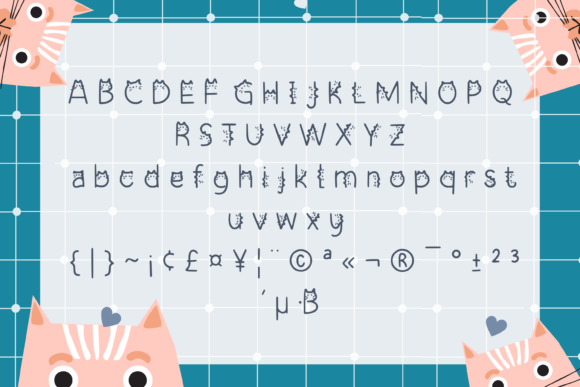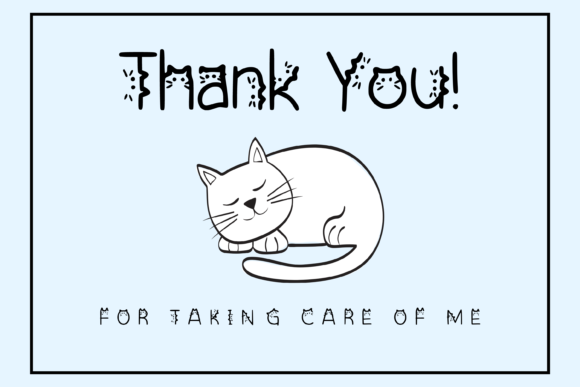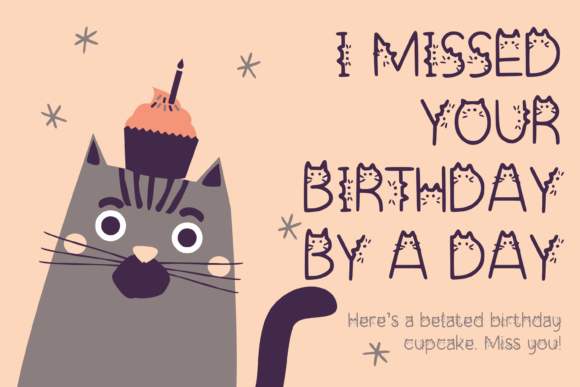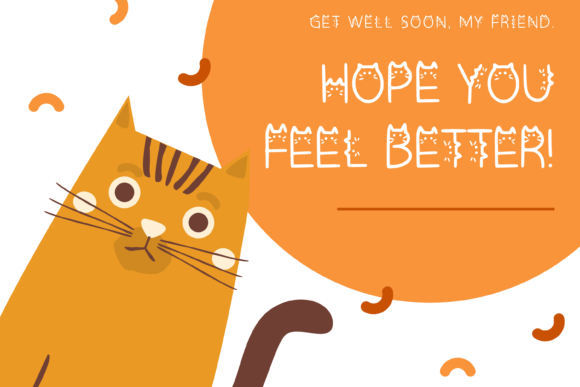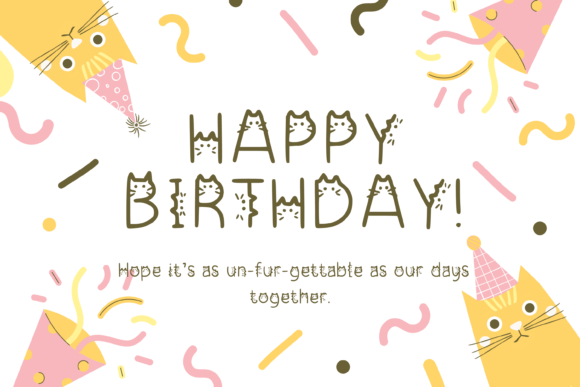
Introduction to Cattie Font
Cattie is a stylish and cute decorative font.
It features cat-themed characters that will add an incredibly joyful touch to your projects Use this amazing font for a wide range of crafty ideas, from letterheads and titles to stationery, and elevate your projects to the highest level.